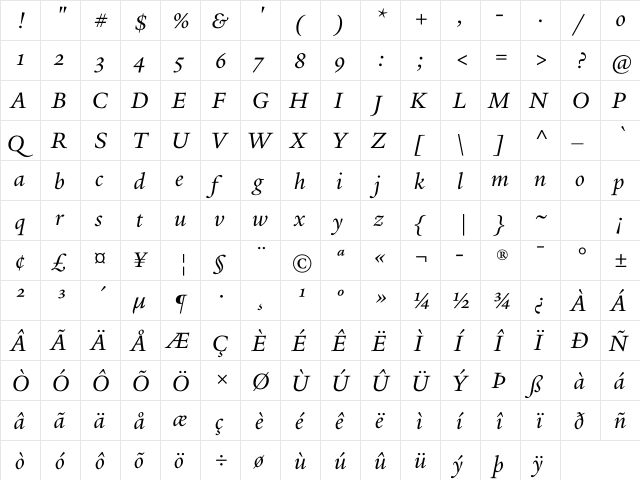
YaleCFF Italic
Design Context for YaleCFF Typeface
YaleCFF is a composed and adaptable typeface that performs quietly and consistently across a wide range of design contexts. Its italic angle brings a sense of urgency and motion to the letterforms.
Pro Tip: Try YaleCFF for annotation and caption copy alongside an upright companion — the contrast in angle creates a dynamic but ordered typographic system.